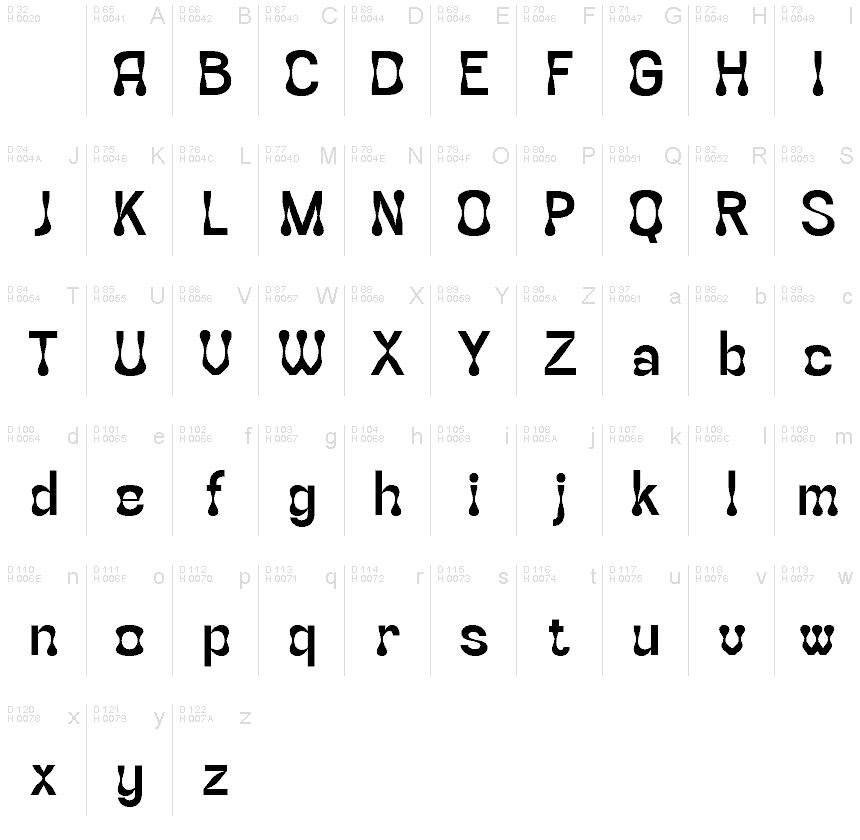
CS Floid Regular Demo
CS Floid font by Craft Supply Co. exhibits unique character shapes through its flowing, organic, and whimsical display style. This display typeface gives off a modernist feel with its artistic flair added by twisted strokes, blending rustic influences with minimal letter construction.
The free display font is perfect for creative text in packaging designs, branding identity projects, logotypes, magazines and book covers. Other uses include digital posters and banners for mobile/desktop websites and applications.